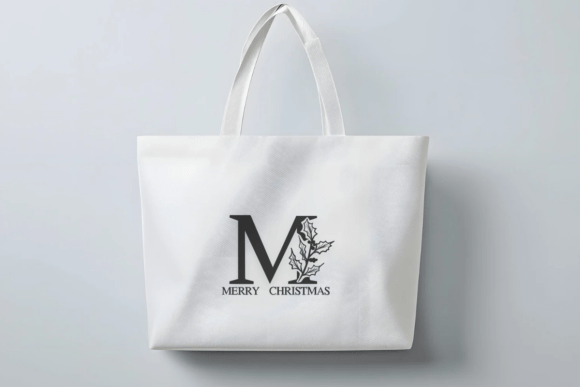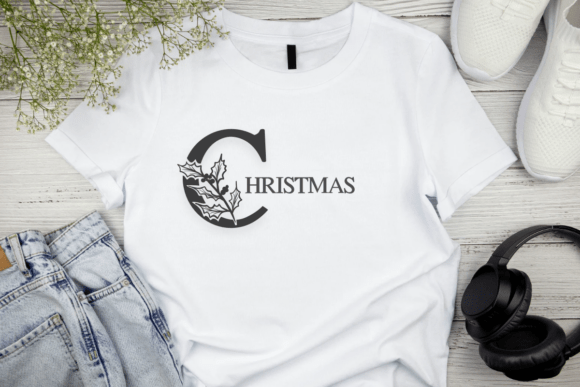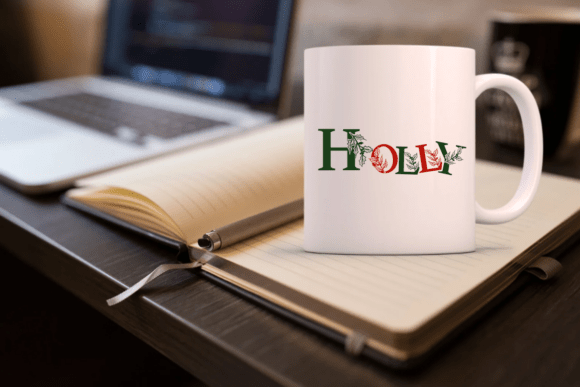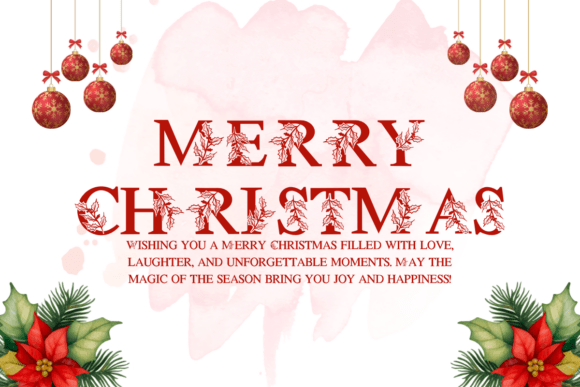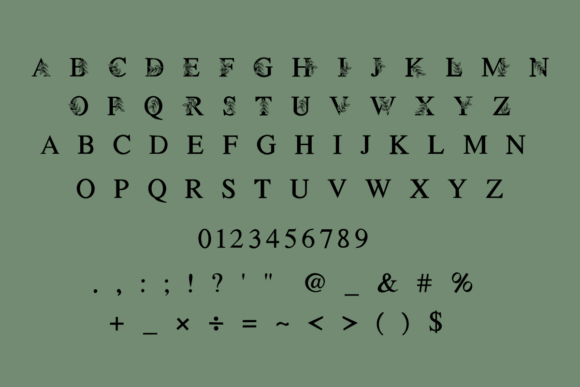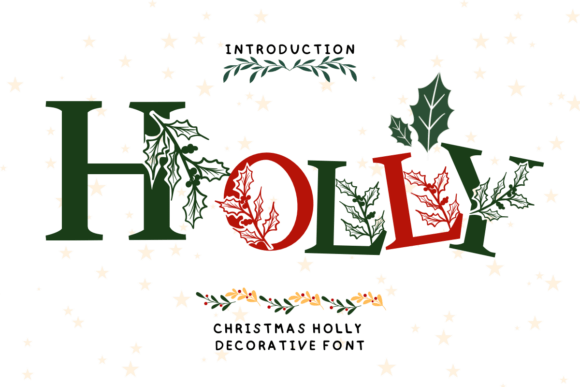
Inject Festive Charm into Your Creatives with Christmas Holly Font
As the holiday season approaches, designers and crafters are on the lookout for creative ways to add a touch of festive flair to their projects. If you’re looking to elevate your designs with a dash of holiday cheer, look no further than the Christmas Holly font. This visually delightful font is perfect for injecting festive charm into your creatives, from note-taking and journal entries to festive greeting cards and beyond.
A Font that Balances Style and Readability
One of the standout features of the Christmas Holly font is its perfect balance of style and readability. Unlike some holiday fonts that can be overly ornate or difficult to read, Christmas Holly strikes the perfect balance between festive flair and legibility. This makes it an ideal choice for a range of design applications, from personal stationery to digital content.
Beyond Holiday Greeting Cards: Exploring the Versatility of Christmas Holly
While Christmas Holly is undoubtedly a great choice for festive greeting cards, its versatility extends far beyond this one application. This font can be used to create eye-catching banners, engaging digital content, personalized mugs, cards, and apparel. Whether you’re a designer looking to add a touch of personality to your client’s branding or a crafter seeking to create unique and festive gifts, Christmas Holly is the perfect choice.
Adding a Touch of Personality to Your Stationery
If you’re a fan of stationery or enjoy journaling, Christmas Holly is a great way to add a touch of personality to your pages. Imagine creating beautifully designed journal entries or stationery that showcases your unique style and flair. With Christmas Holly, you can add a festive touch to your daily notes or correspondence, making even the most mundane tasks feel more special.
Infusing Engaging Style into Your Social Media Posts
In today’s digital age, social media is an essential platform for designers, crafters, and businesses to showcase their work and connect with their audience. With Christmas Holly, you can infuse engaging style into your social media posts, making them stand out from the crowd. Whether you’re sharing behind-the-scenes glimpses of your design process or showcasing your latest creations, this font is sure to add a touch of festive flair to your online presence.
Exploring the Unlimited Possibilities of Christmas Holly
One of the most exciting things about Christmas Holly is the unlimited possibilities it brings to your design palette. With this font, you can create a wide range of designs, from traditional holiday greeting cards to modern digital content. Whether you’re a seasoned designer or a crafter just starting out, Christmas Holly is a versatile and fun font that is sure to inspire your creativity.
Design Ideas to Get You Started
If you’re looking for inspiration on how to use Christmas Holly, here are a few design ideas to get you started:
• Create festive holiday greeting cards for friends and family
• Design eye-catching banners for your website or social media channels
• Personalize mugs, cards, and apparel with a touch of festive flair
• Add a touch of personality to your journal entries or stationery
• Infuse engaging style into your social media posts
In conclusion, Christmas Holly is a visually delightful font that is perfect for injecting festive charm into your creatives. With its perfect balance of style and readability, this font is versatile and fun to use, making it an ideal choice for designers and crafters alike. Whether you’re looking to create festive greeting cards, add a touch of personality to your stationery, or infuse engaging style into your social media posts, Christmas Holly is the perfect choice. So why not explore the unlimited possibilities it brings to your design palette and get creative with Christmas Holly today?